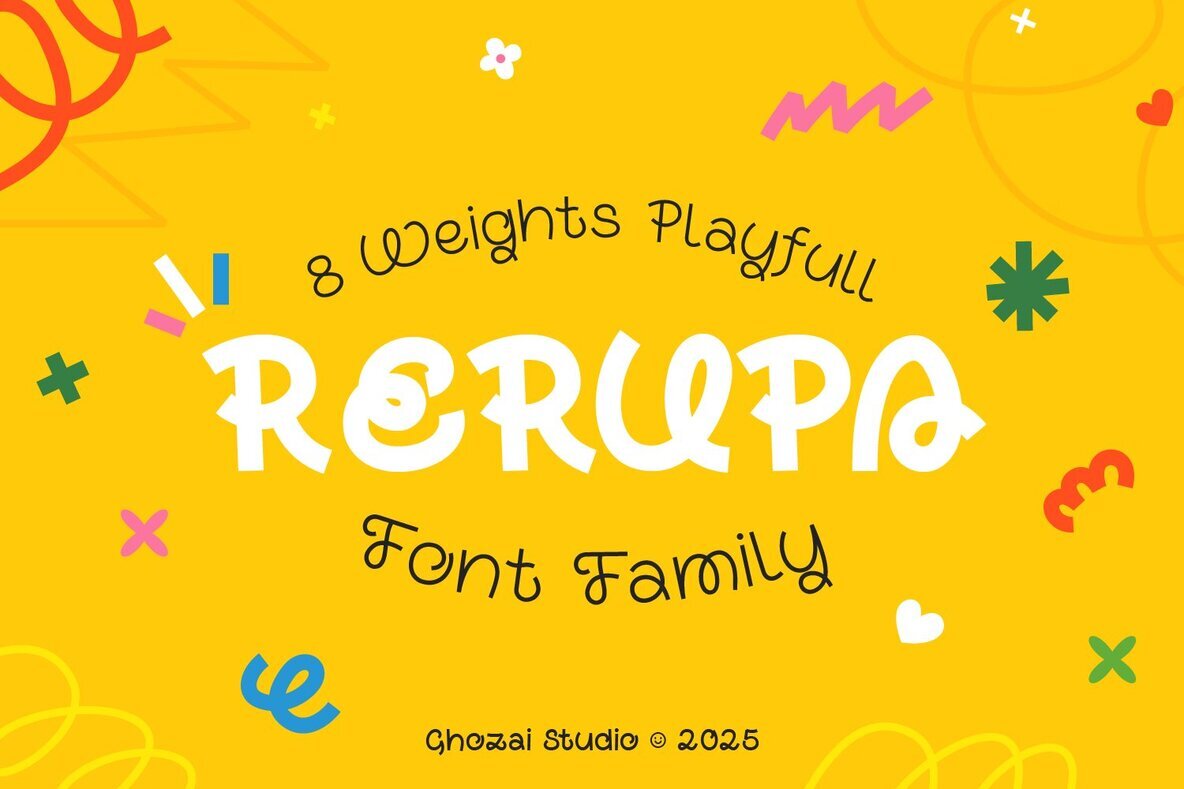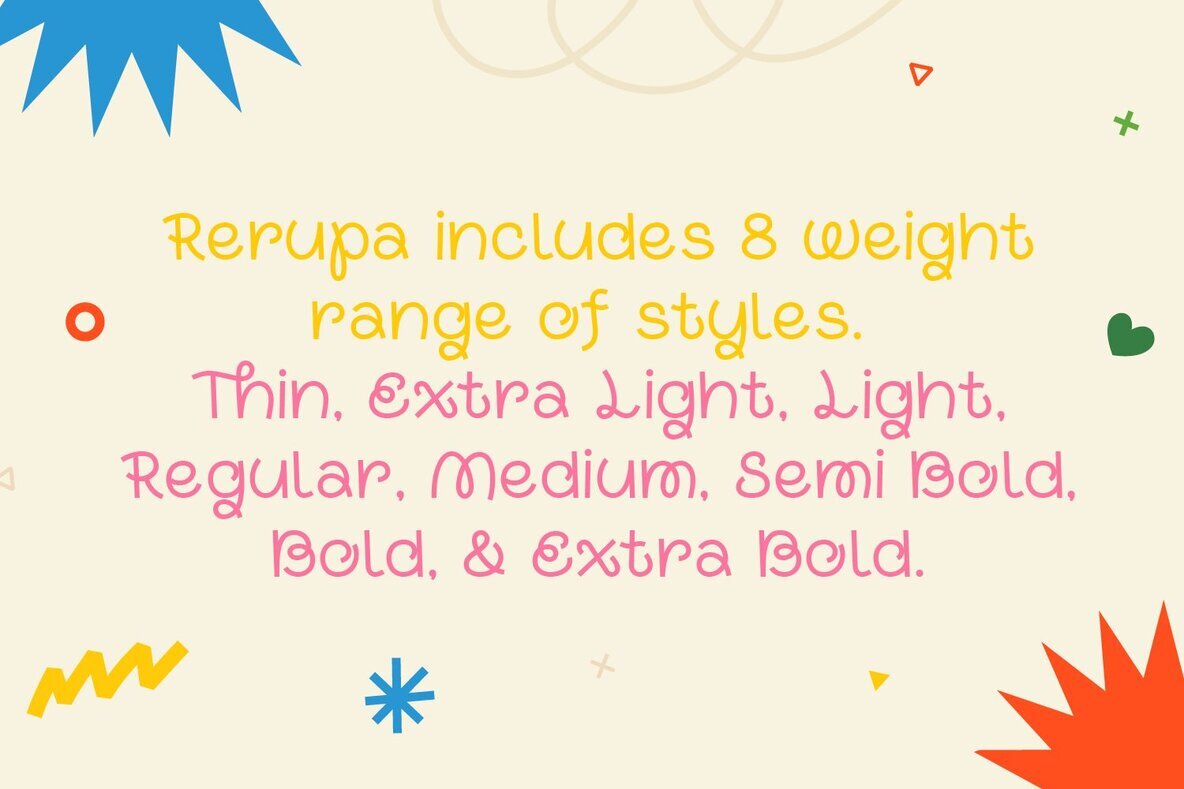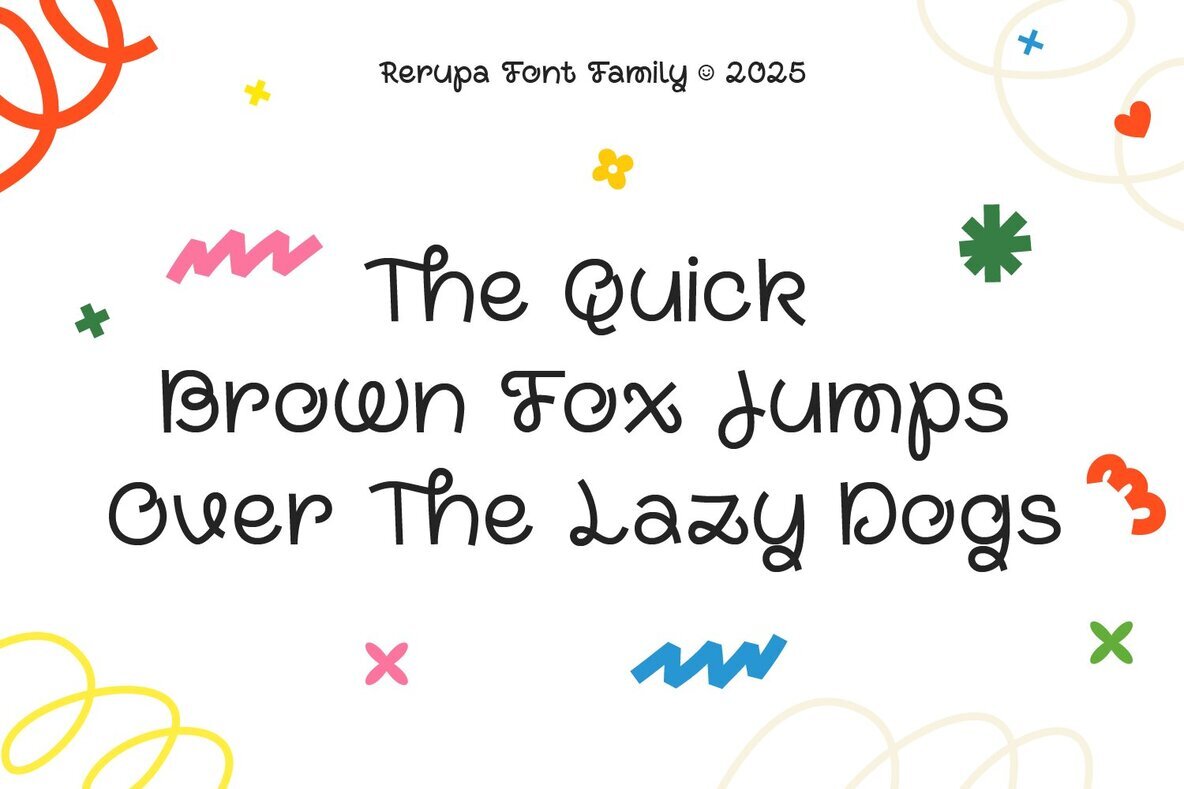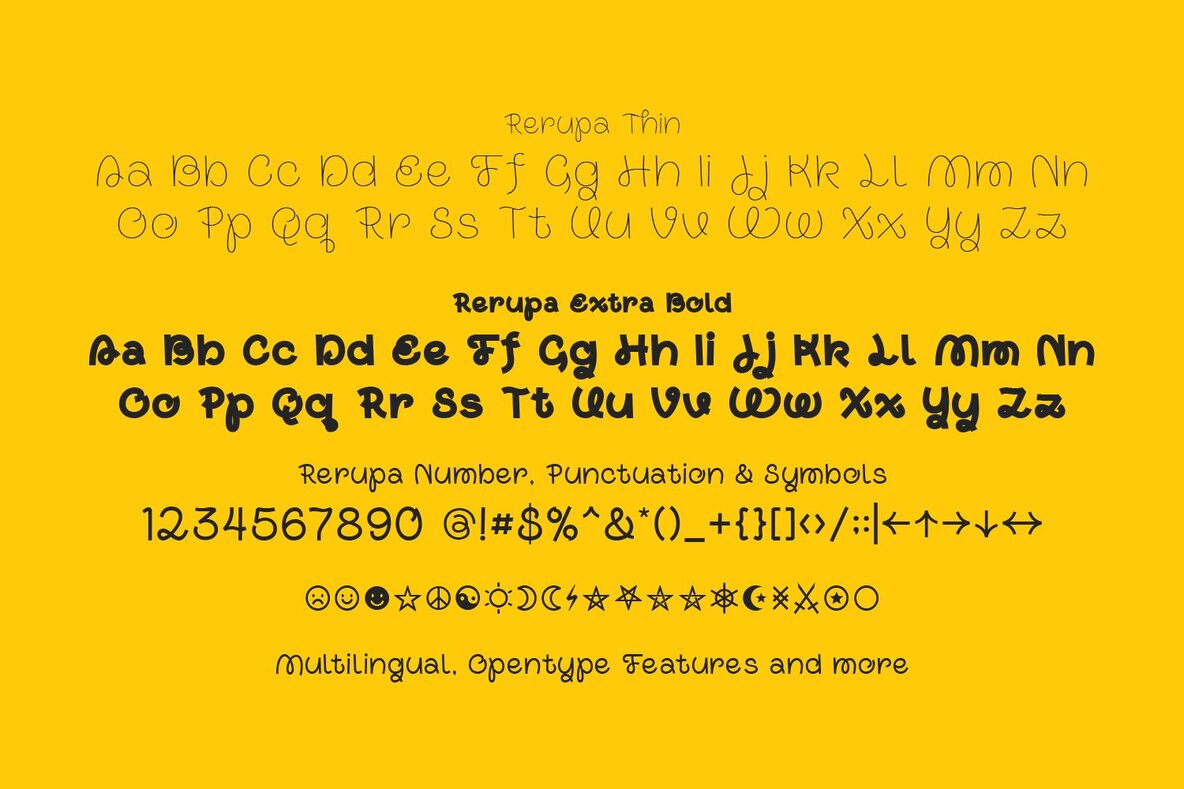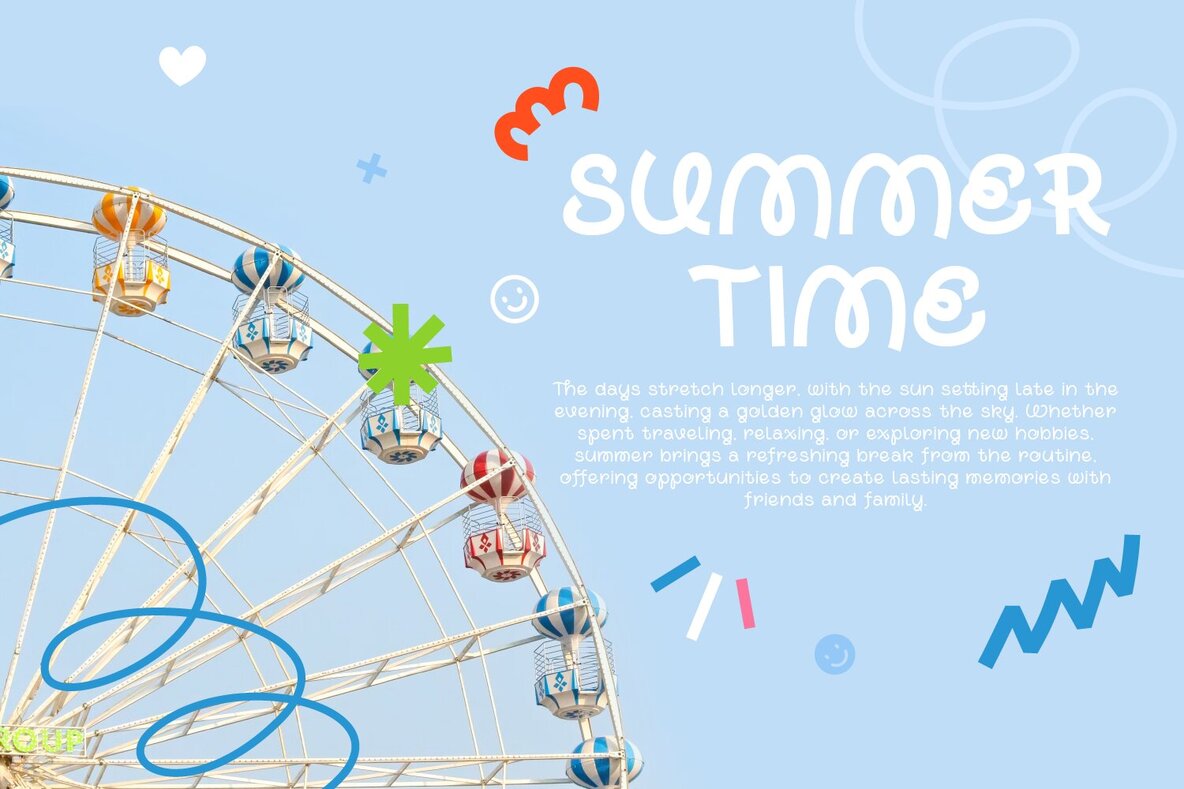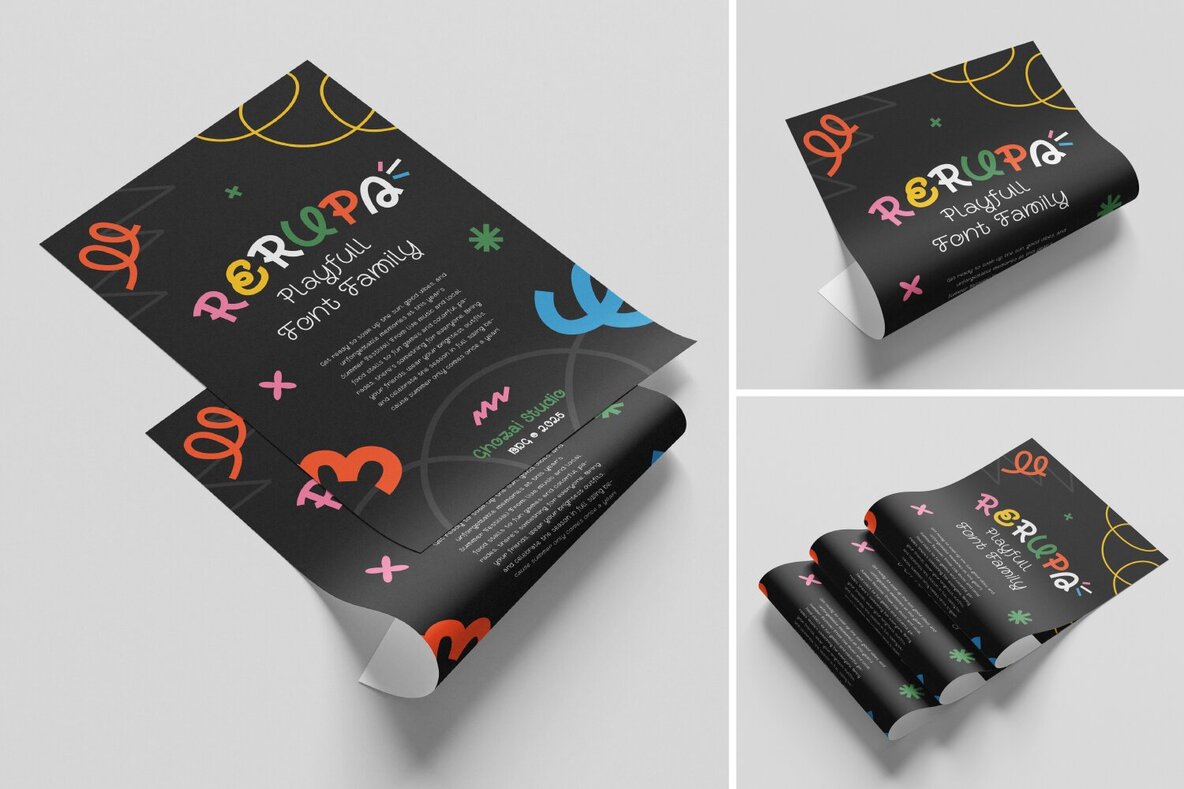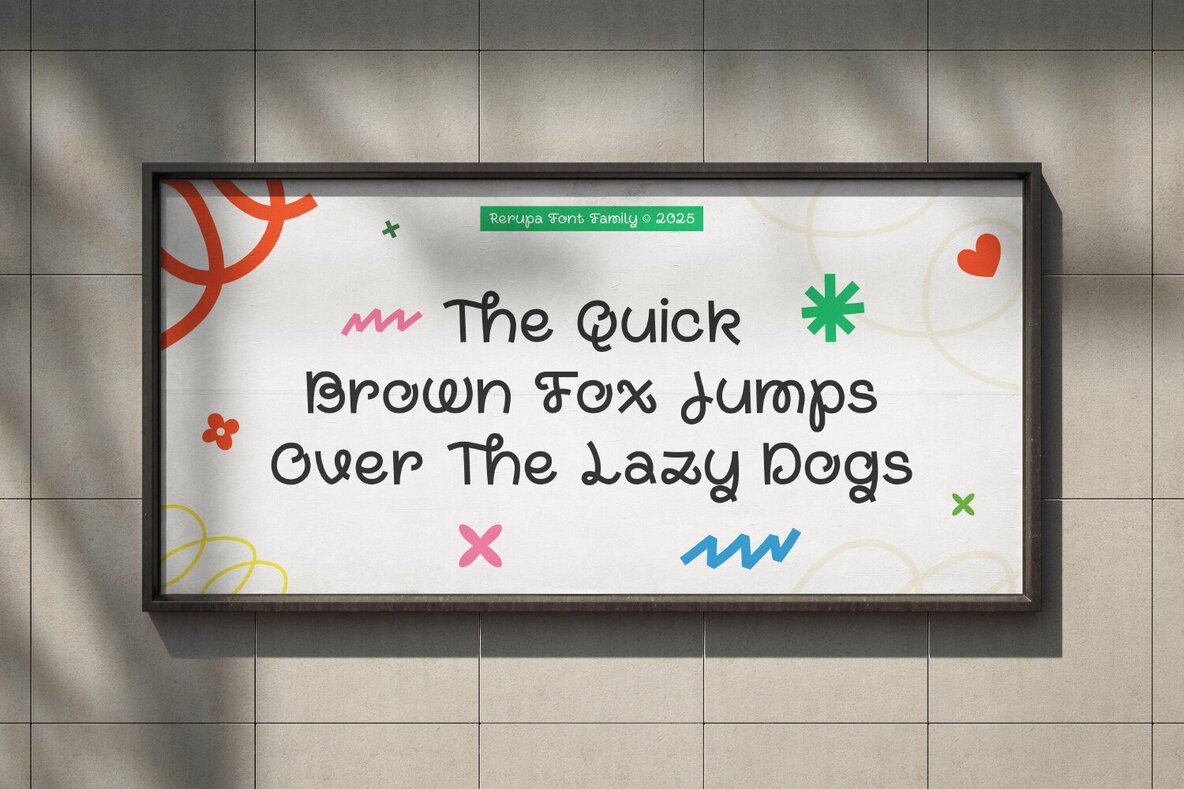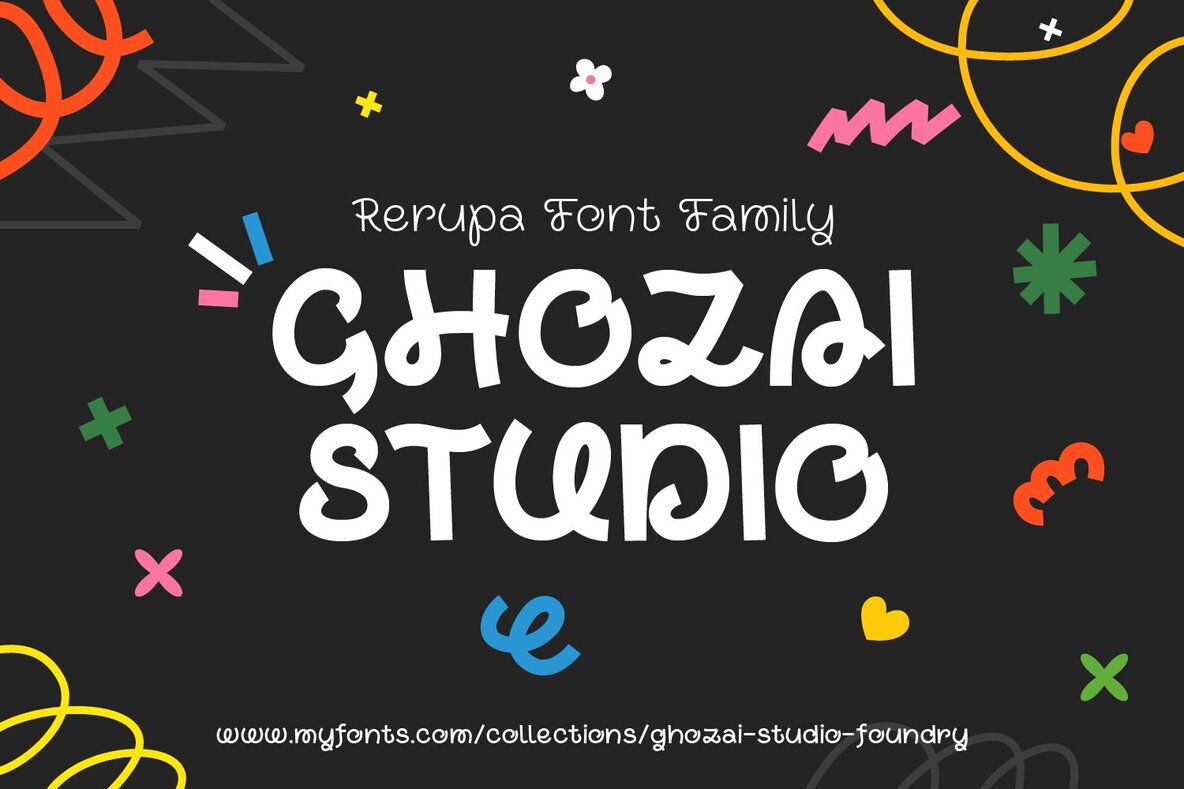
Rerupa Font
Rerupa is a dynamic font family that brings an experimental and playful edge to your design projects. Spanning eight distinct weights from Thin to Extra Bold, it provides a rich spectrum of typographic choices. With advanced OpenType features and multilingual glyph support, Rerupa seamlessly serves various languages and design requirements. Emulating a spirited handwriting style, Rerupa is designed to enliven any creative endeavor. Its fluid nature makes it ideal for diverse applications such as display, branding, and festival posters. Whether you're crafting striking headlines, unique logos, or clear signage, Rerupa artfully balances both style and function. Its adaptability across design genres ensures it meets the needs of projects demanding a bold, contemporary flair.Rerupa: A Versatile and Playful Font Family